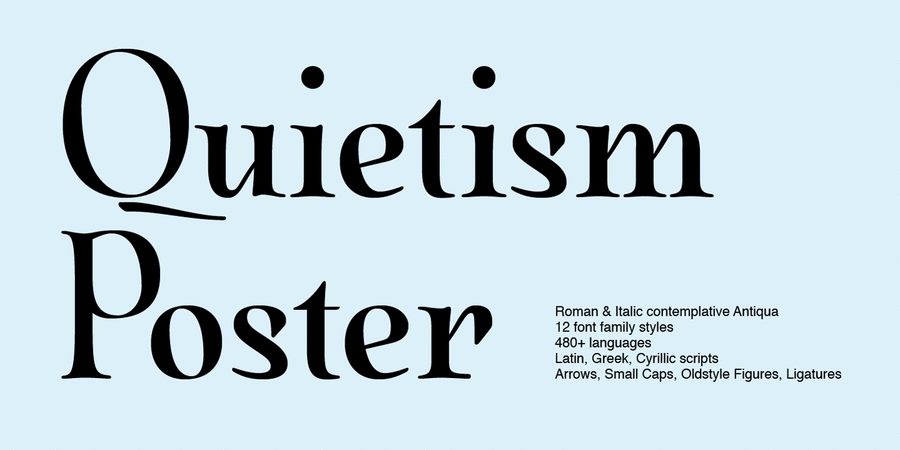
Quietism Poster – font subfamily for big headings.
Quietism is a smooth contemplative Antiqua with aspiring to the sky ascenders, inspired by the Quietism philosophy. Clarity of the mind is achieved by bringing the body into a state of calm and contemplation, and this is reflected in the design – the quiet horizontal serifs (body) are opposed to the peaky soaring ascenders (mind). The design also features four optical size subfamilies with different x-height and contrast, oldstyle diagonal stress axis, oldstyle figures by default, smooth details and slightly dark texture.
Optical Size: The typeface is represented by four subfamilies: Text (low contrast, high x-height – for paragraph 10-20 pt), Deck (medium contrast, medium x-height – for subheading 20+ pt), Display (high contrast, medium x-height – for heading 72+ pt), Poster (high contrast, low x-height – for big size 120+ pt). Variable Font: Quietism Variable is represented by Roman and Italic separeted files and has three axes: Weight (Thin–Black), Contrast (Low-High), and X-Height (Low-High). Variable fonts provides more options than static fonts and includes thousands of styles that you can access using a sliders on graphic editor or via CSS on web browser. Mixing different axes gives you extra styles not represented by static fonts. Small Caps: Lowercase letters and Oldstyle Figures are replaced with Small Capitals forms. Capitals to Small Caps: Uppercase letters, all figures, and some punctuation are replaced with Small Capitals forms. Case Sensitive Forms: ()[]{}‹›«»-–—•·#%‰@ and Arrows are centered on capitals. Oldstyle figures are replaced with Lining figures. Oldstyle Figures: 0123456789 #%‰. Designed to work with lowercase letters. Used by default. Lining Figures: 0123456789 #%‰. Figures are the same height as uppercase letters (cap height). Proportional Figures: Lining, Oldstyle, Small Caps, Capitals to Small Caps. Tabular Figures: Lining, Oldstyle, Small Caps, Capitals to Small Caps. Ordinals: adehnorst. Superscript, Subscript, Numerator, Denominator: 0123456789. Fractions: ¼½¾⅐⅑⅒⅓⅔⅕⅖⅗⅘⅙⅚⅛⅜⅝⅞⅟ (precomposed). Any other fractions (even those typed through a slash) will also be displayed correctly, with the automatic replacement to Numerator + fraction + Denominator. Slashed Zero: All 0 figures. Contextual Alternates: Number sign character (#) before uppercase letters is replaced by its version centered on capitals. Hyphen character (-) between two uppercase letters is replaced by its version centered on capitals. First of two TT letters is replaced by its alternate form. Letters vwy before the letters fijmnprtuvwxy are replaced with an alternate shorter versions that fits better in the context. Contextual Alternates (Greek): ΆΈΉΊΌΎΏ. Greek uppercase accented characters lose their tonos accent and retain only dieresis in All Caps and Small Caps modes. Turned on by default. If you need tonos accents in All Caps then turn off Contextual Alternates (calt) feature. Stylistic Alternates: FTГТИЦЩцщ and their versions with diacritical marks. Stylistic Set 01 “Arrows”: Left <- Right -> Up <| Down |> Left Right <-> Up Down <|> North West <\ North East /> South West South East \>. Stylistic Set 02 “Round-Square Cyrillic”: ДИЙЍЛФвгджзийѝклнптцчшщьъю characters are replaced with its Bulgarian or Russian forms. Stylistic Set 03 “Cyrillic Tse Shcha short tails”: ЦЩцщ characters are replaced with its alternate form with short tail. Stylistic Set 04 “Cyrillic I full serifs”: ИЙЍӢ characters are replaced with its alternate form with inner serifs. Stylistic Set 05 “FT bent inward serif”: FTГ characters and their versions with diacritical marks are replaced with its alternate form with right head serif that bent inside. Stylistic Set 06 “Small Caps centered on Capitals”: Small Caps are vertically centered on uppercase letters. Standard Ligatures: fi fl fb ff fh fj fk ffb ffh ffi ffj ffk ffl. Discretionary Ligatures: Th ct st. Localized Forms: 52 character substitutions for Azeri, Bulgarian, Catalan, Dutch, German, Kazakh, Macedonian, Moldavian, Polish, Romanian, Serbian, Tatar, Turkish. Glyph Composition/Decomposition (Diacritics): Full Latin and based Vietnamese set of diacritics (571 characters) precomposed.
The typeface was designed by Michael Rafailyk in 2022.